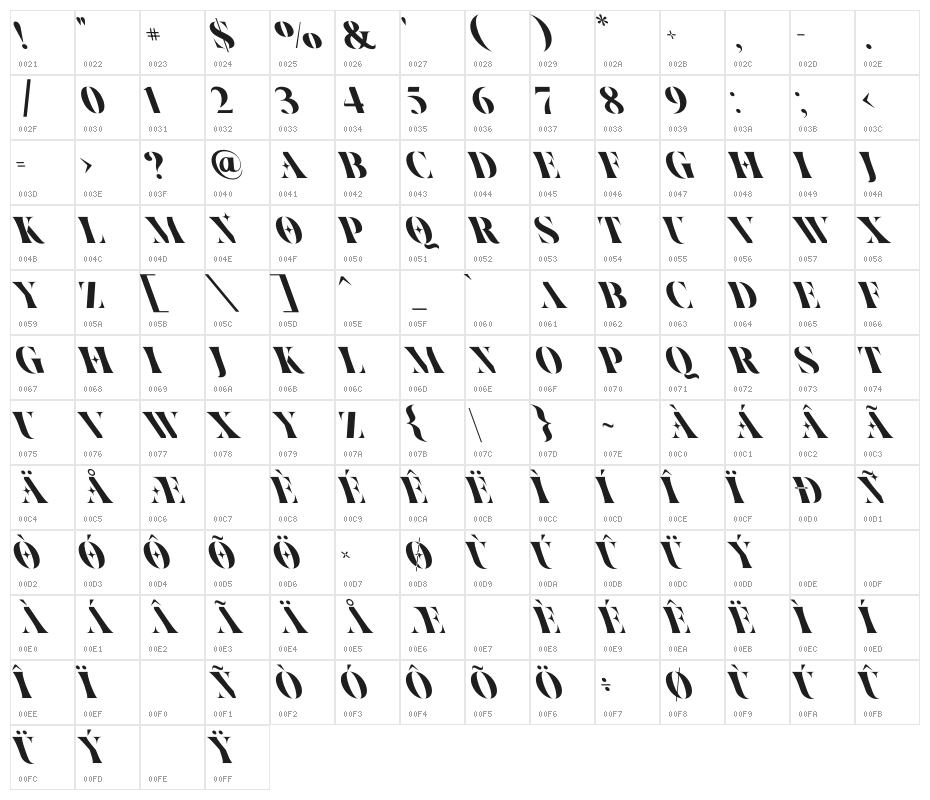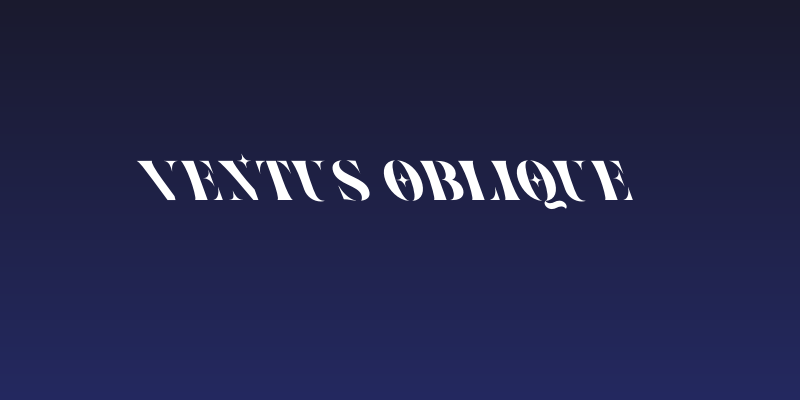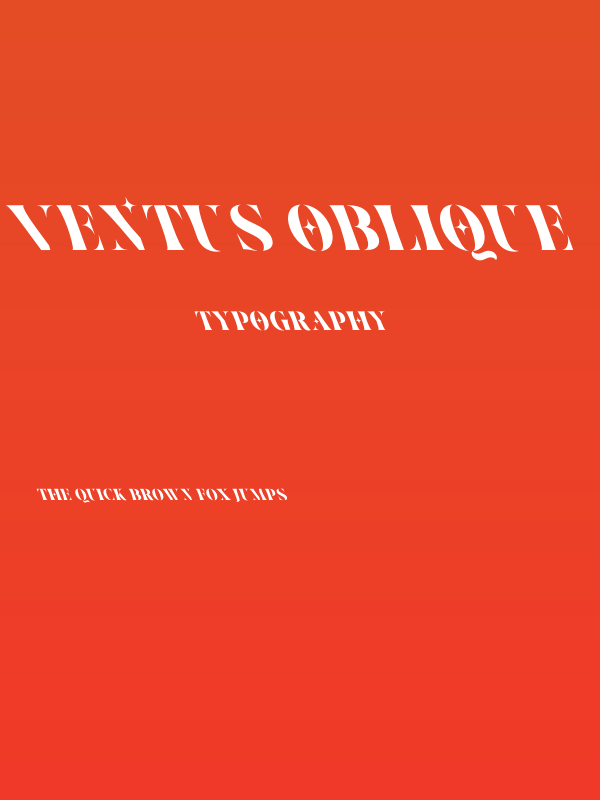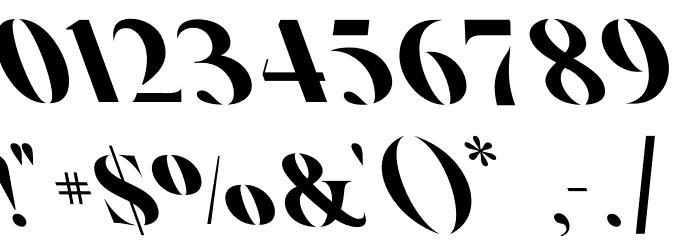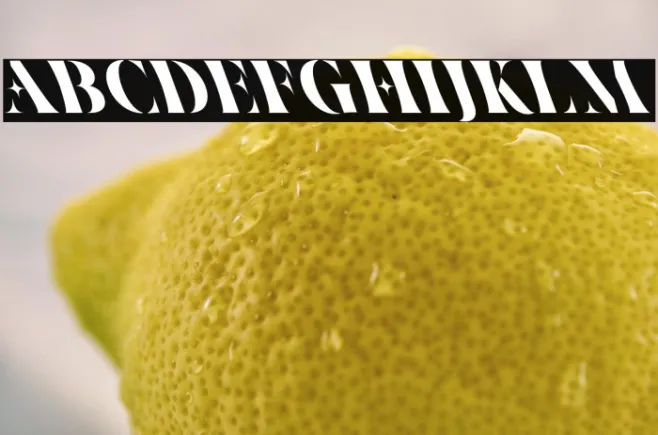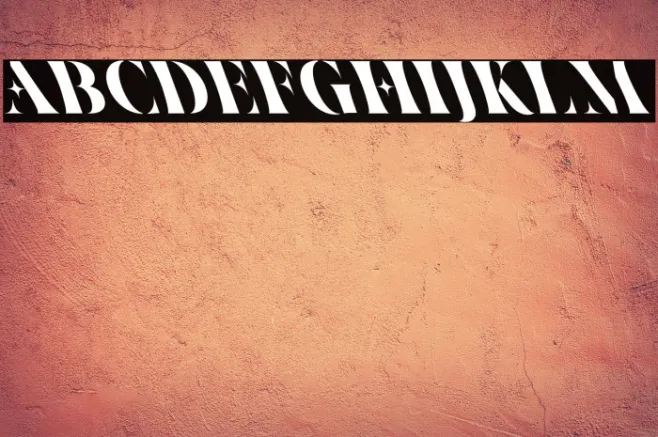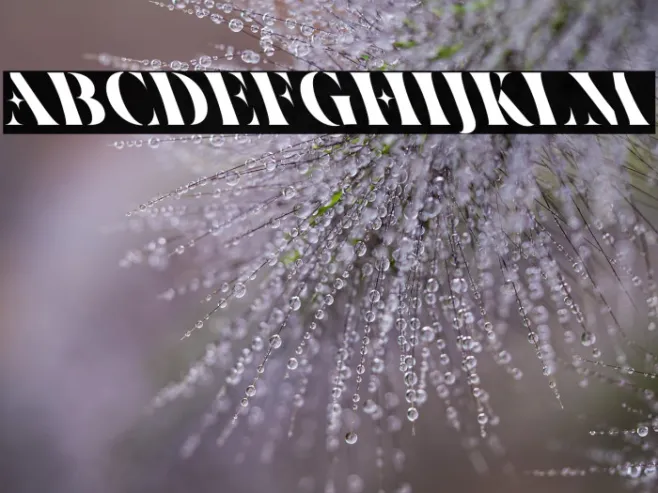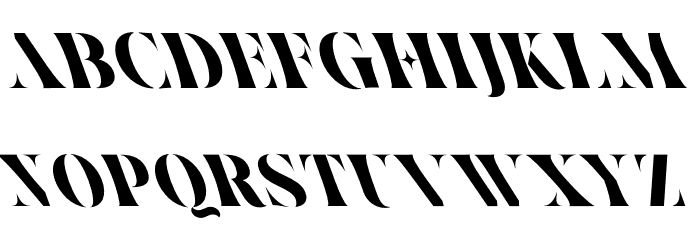
Ventus Oblique Font
Ventus Oblique Description
This font features a bold and dynamic oblique style, characterized by its sharp, angular cuts and high contrast between thick and thin strokes. The letters are slanted, giving a sense of movement and energy. The design incorporates unique stencil-like gaps, adding a modern and edgy feel. The uppercase and lowercase letters maintain a consistent style, while the numerals and special characters complement the overall aesthetic. This font is visually striking and commands attention, making it suitable for impactful designs.
| Proposed Projects | Ideal for branding, posters, and headlines that require a modern and dynamic appearance. |